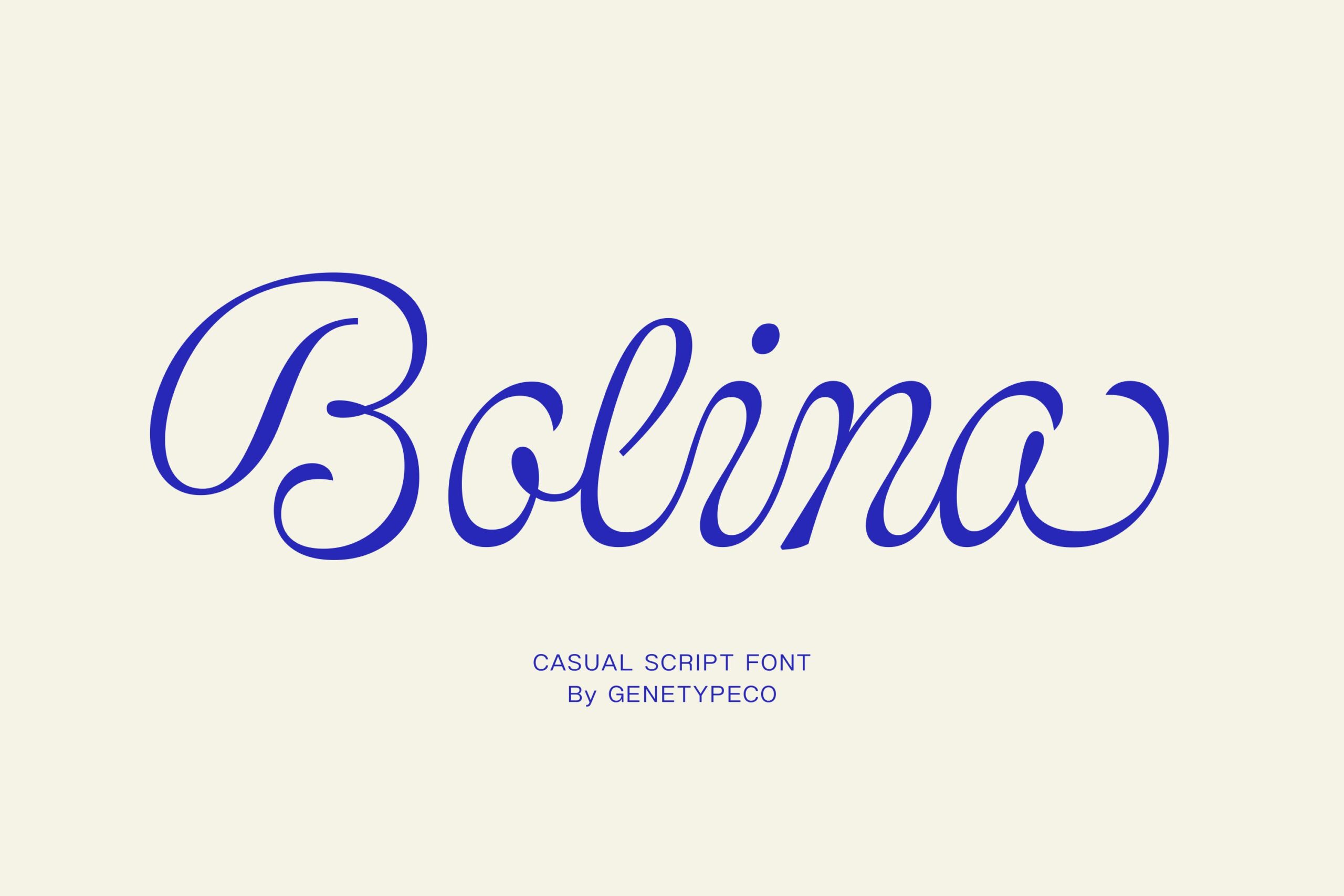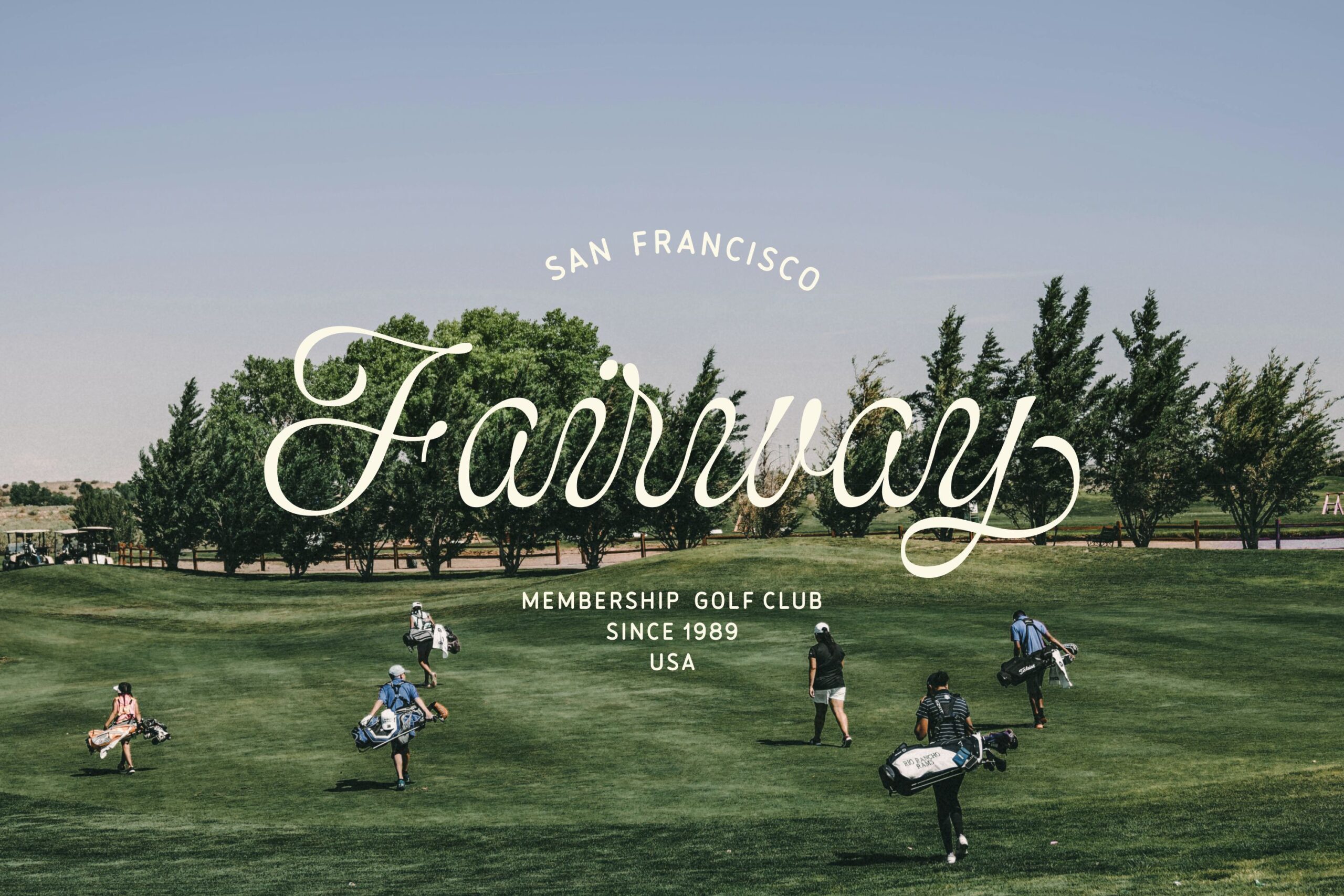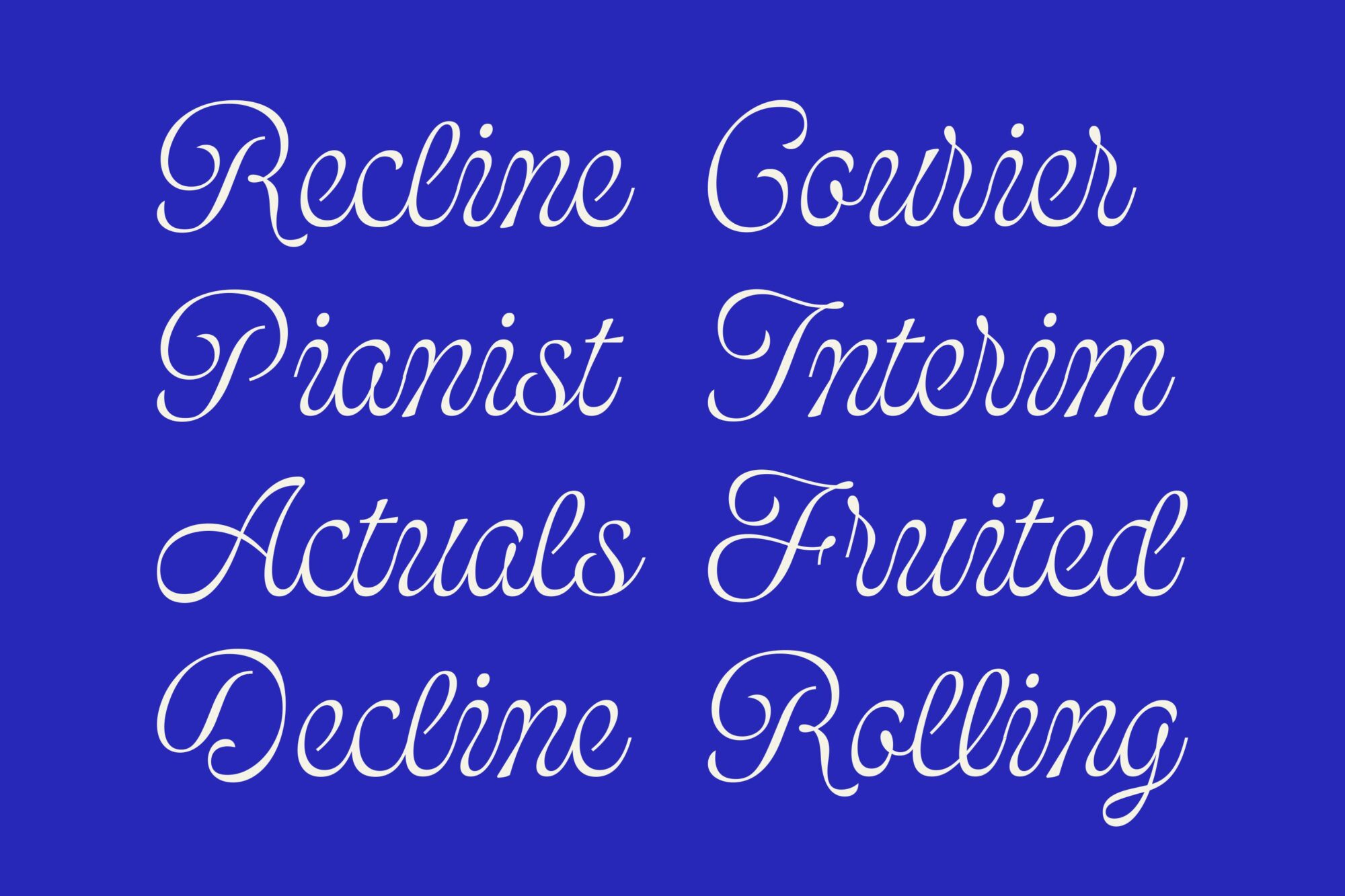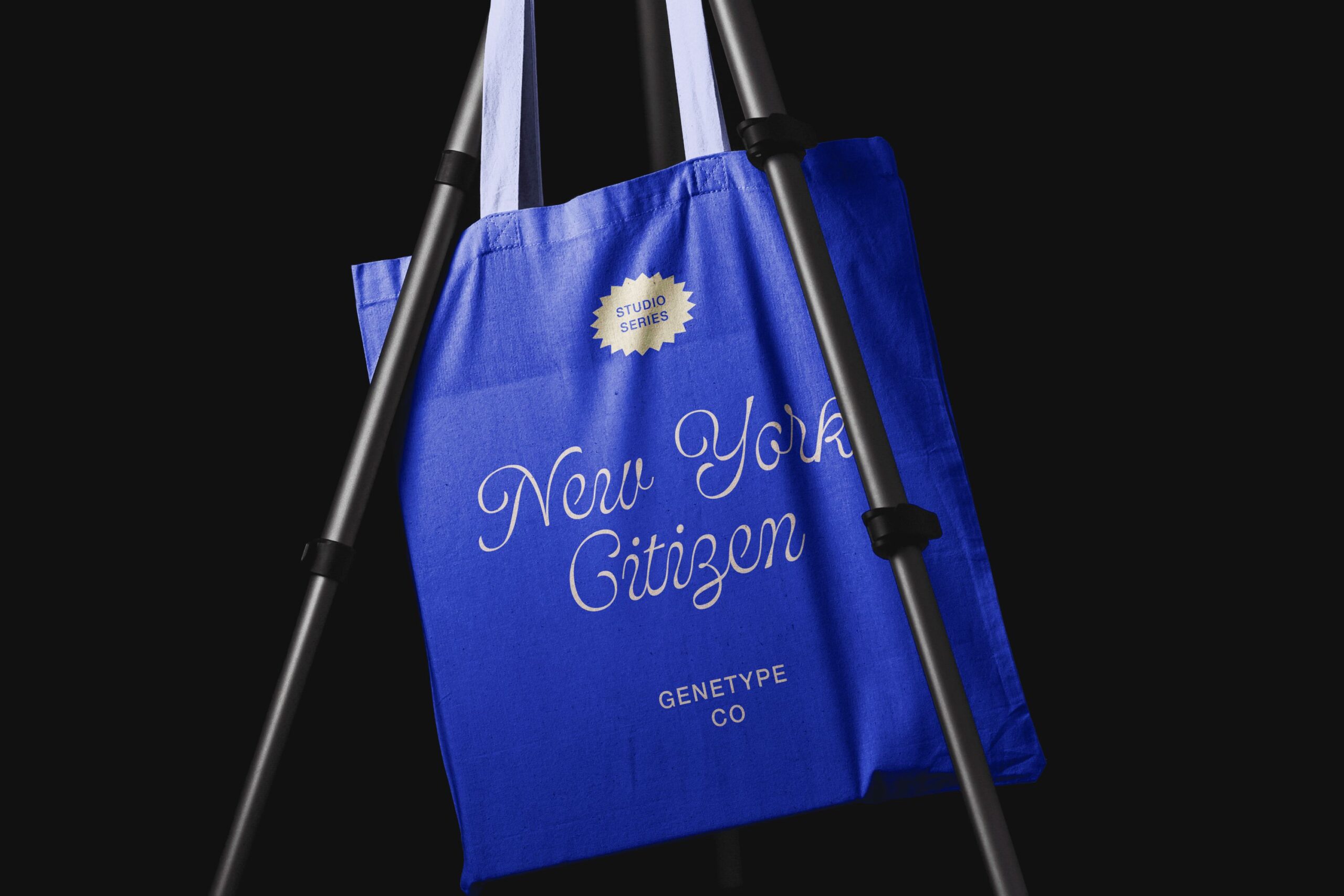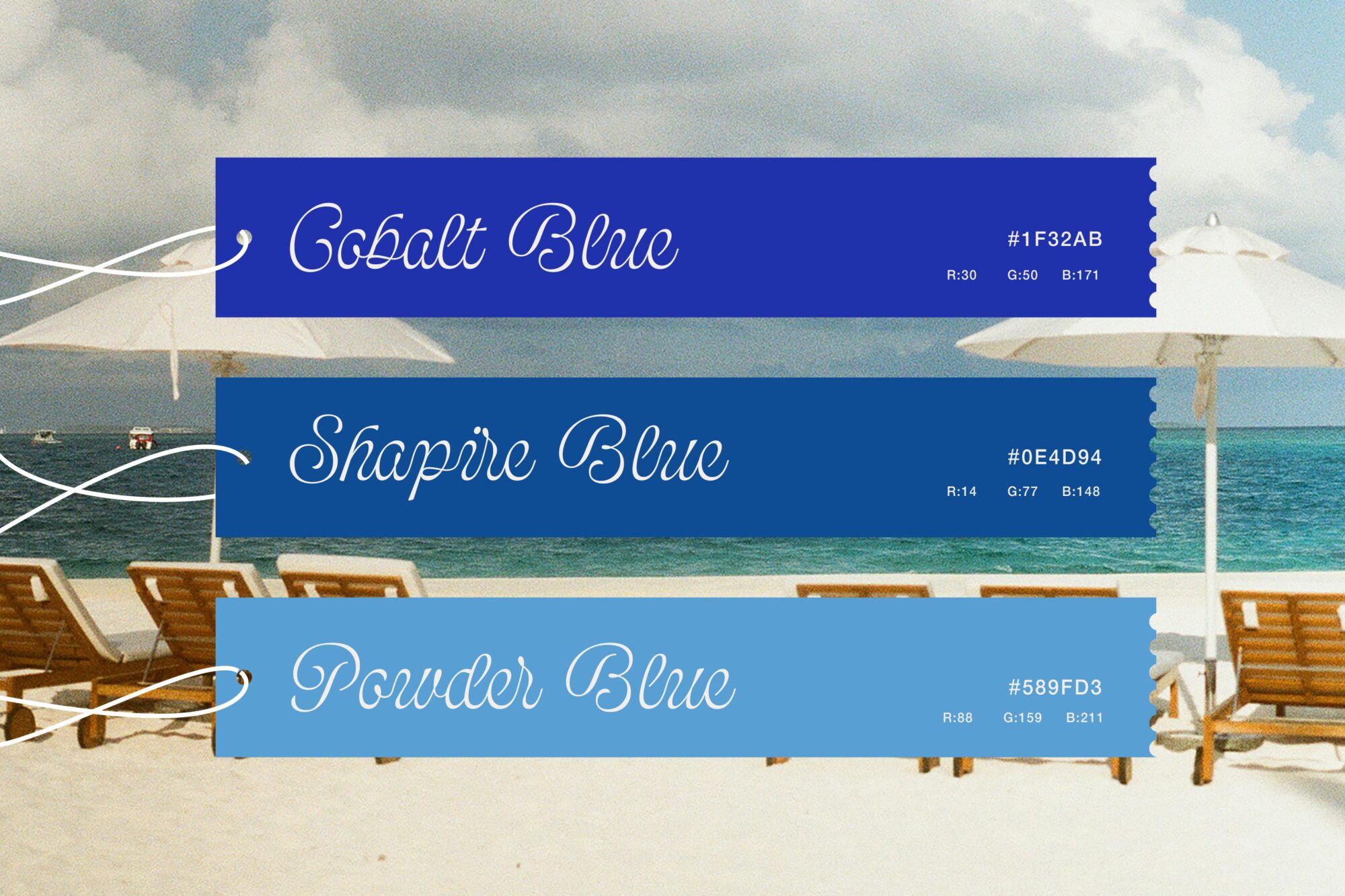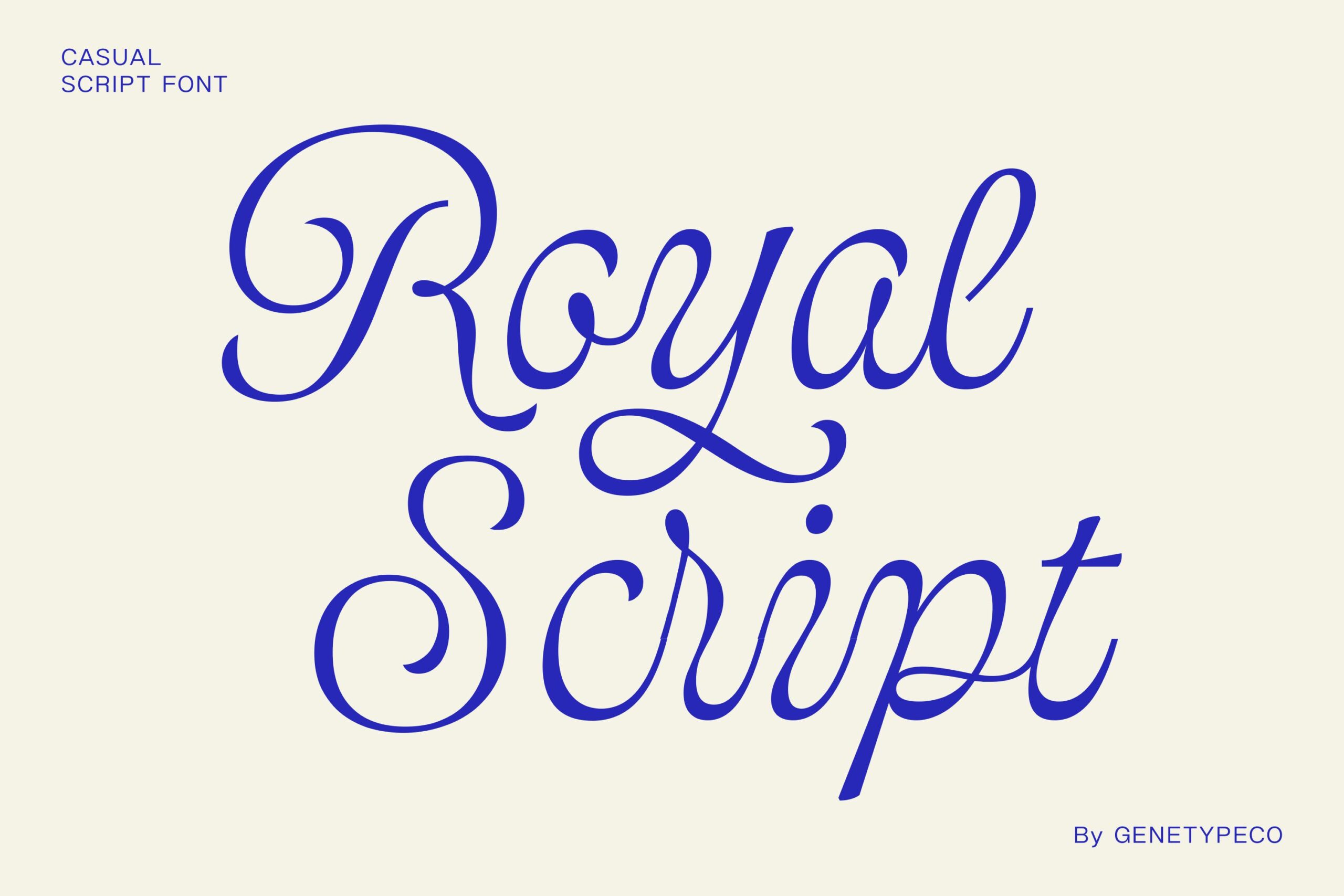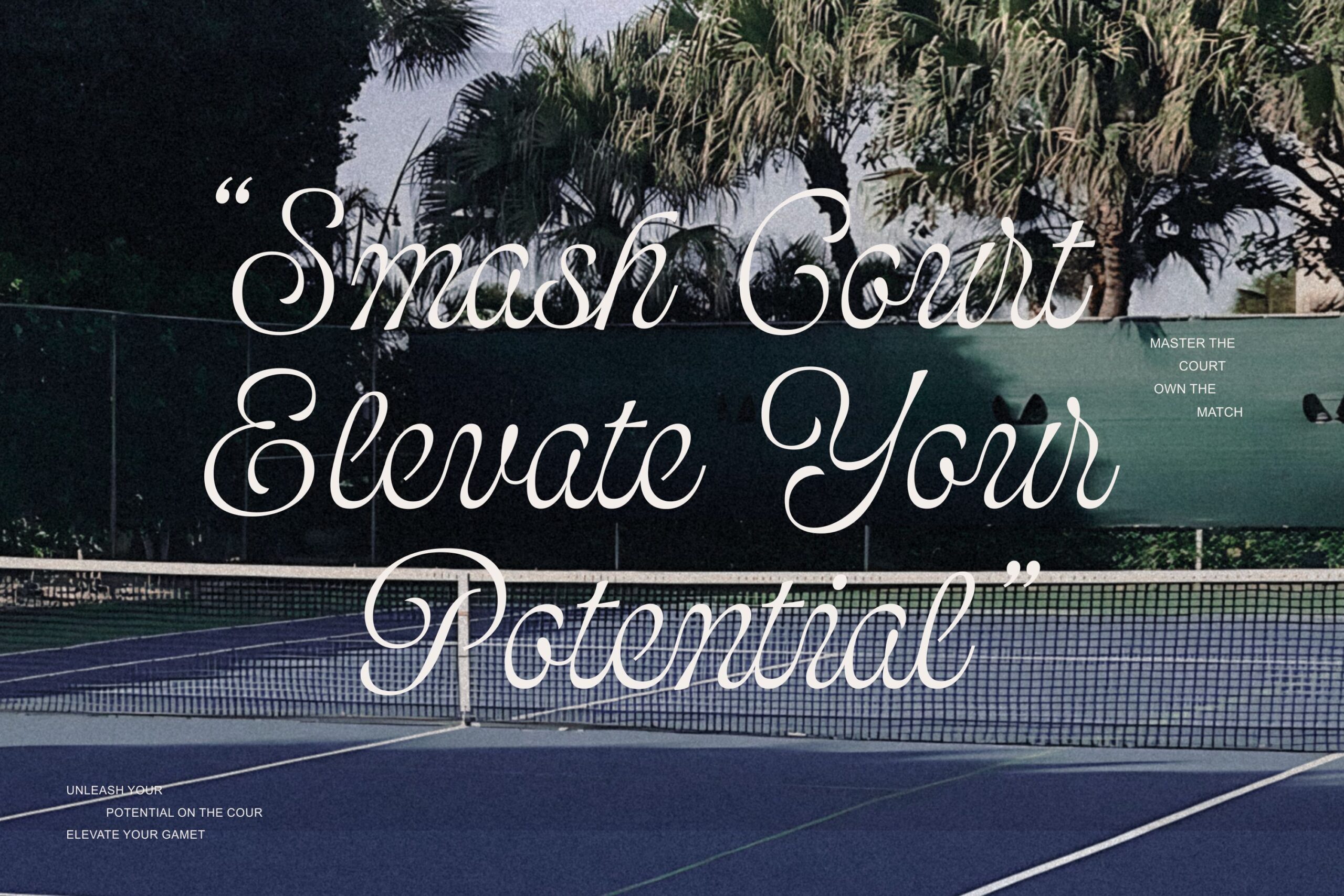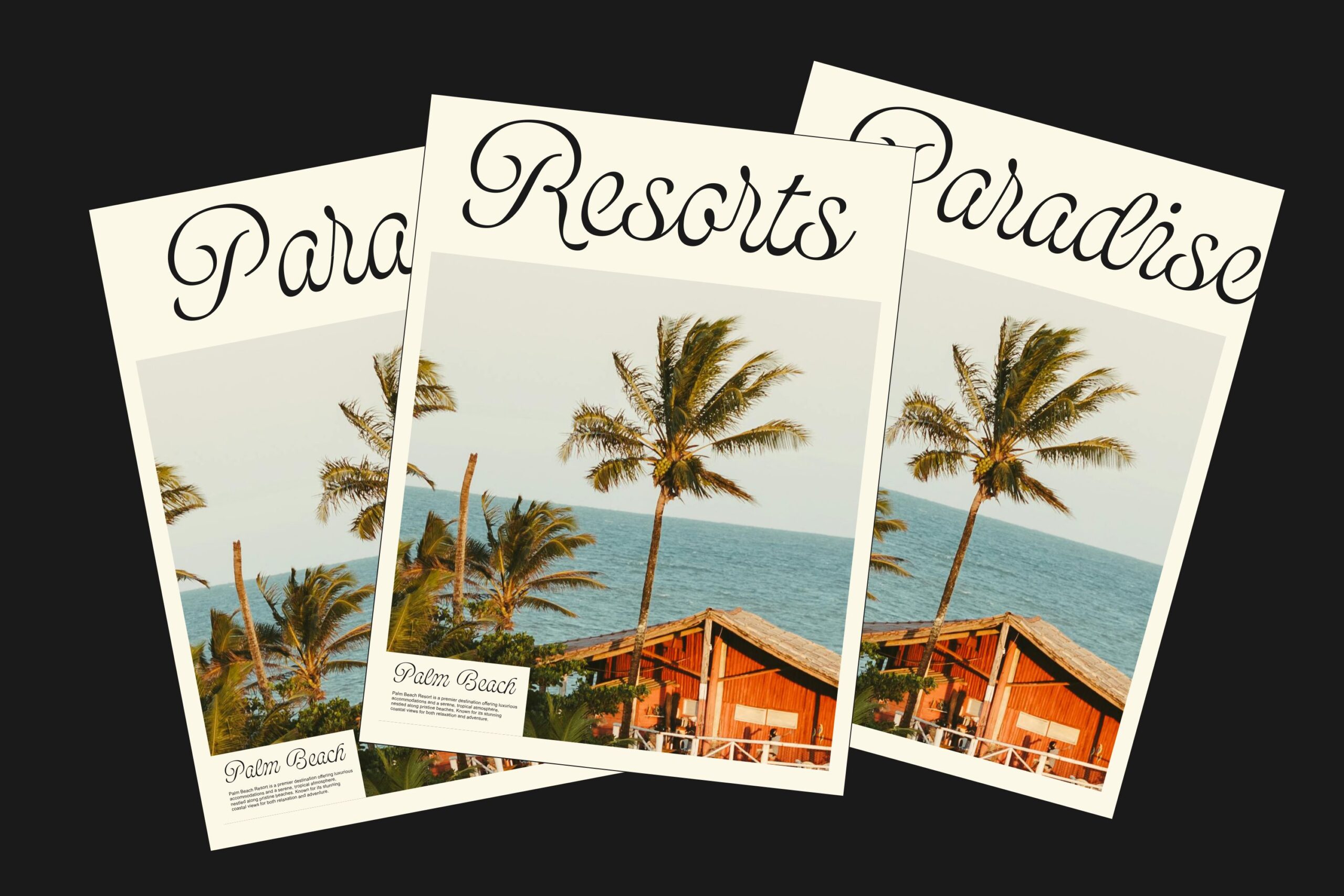
Bolina Script Font
Bolina is A casual, modern script with clean lines and a relaxed feel.
Perfect for logos, branding, invitations, social media, posters, and anything that needs a stylish yet effortless touch. Versatile and full of personality, this font adds a fresh vibe to any design!